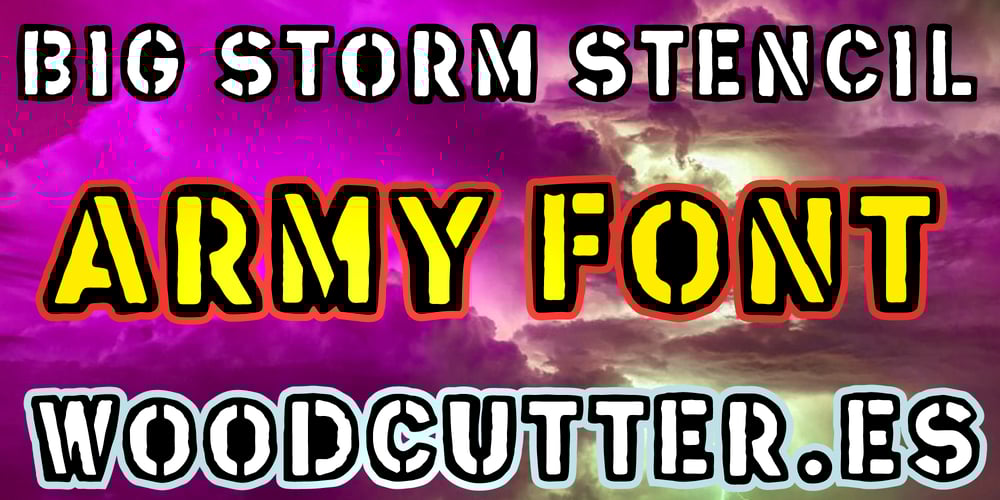
Big Storm Stencil
Big Storm Stencil font
Big Storm Stencil Font Family was designed by Jordi Manero and published by Woodcutter. Big Storm Stencil contains 1 styles and family package options. “Big Storm Stencil” is an inverted stencil font that stands out with its irregular black contours, giving the letters a bold and strong appearance. Designed in uppercase, this typeface is ideal for creating a powerful visual impact in posters, signage, and designs requiring a military or industrial style. The irregular edges add a touch of character and toughness, evoking the look of stencils used in harsh conditions, like storms or intense action scenes.